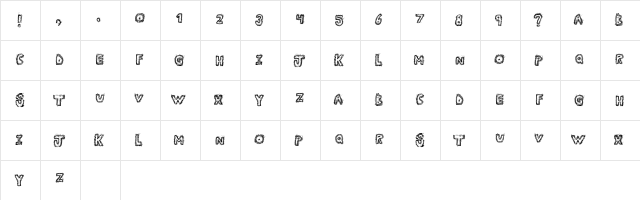
ManyFun Regular
Design Context for ManyFun Typeface
ManyFun has an approachable, lighthearted character — its loose, expressive forms are well-suited to children's content, casual branding, and fun-first design.
Great for children's books, toy packaging, family event branding, and casual consumer-facing design.
Font Pairing: Pairs well with a rounded or humanist sans for body copy, maintaining the friendly tone without relying on ManyFun to carry extended reading.
Pro Tip: Avoid using ManyFun for long passages of text — it works best for headlines, labels, and short calls to action.